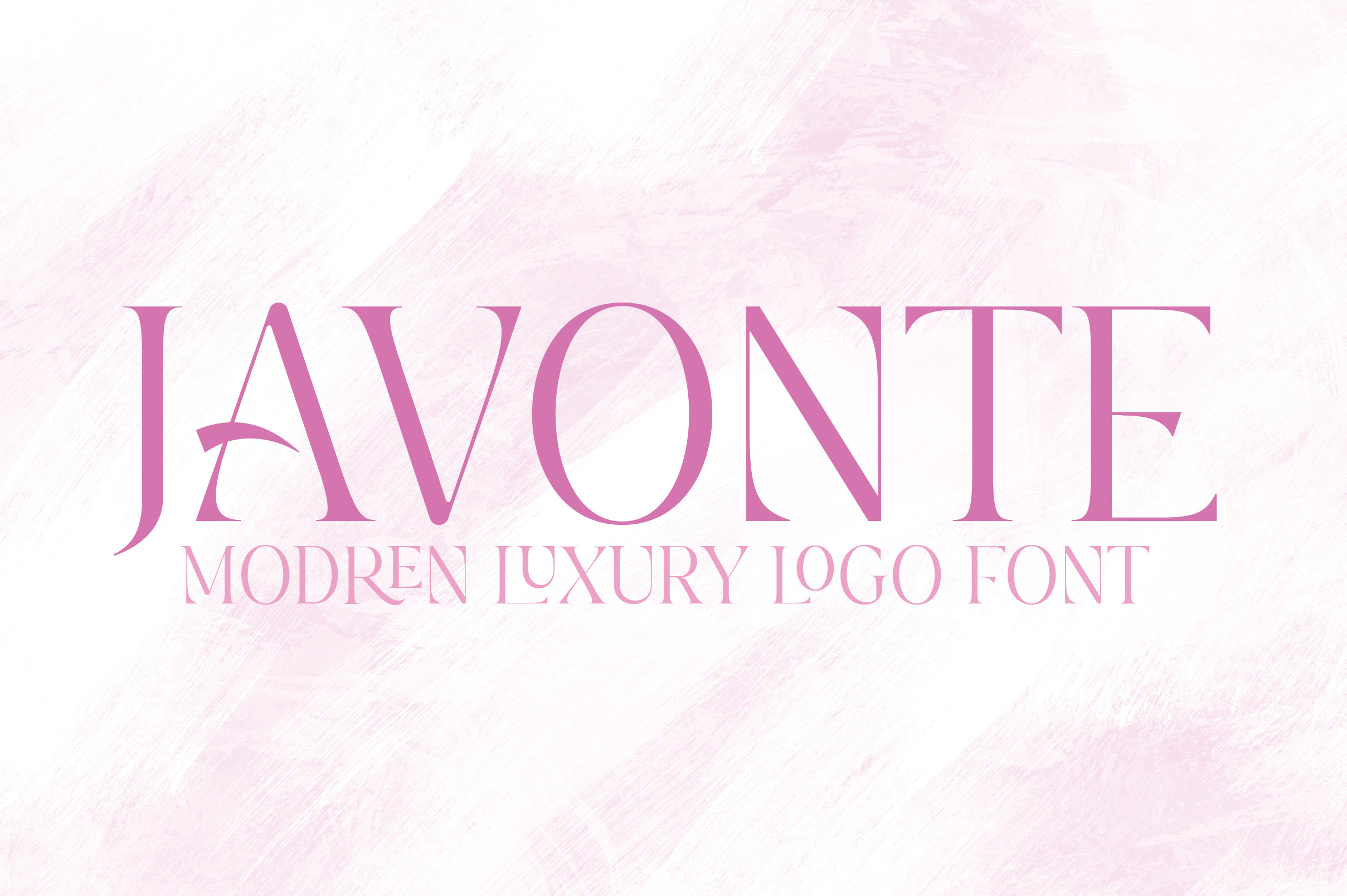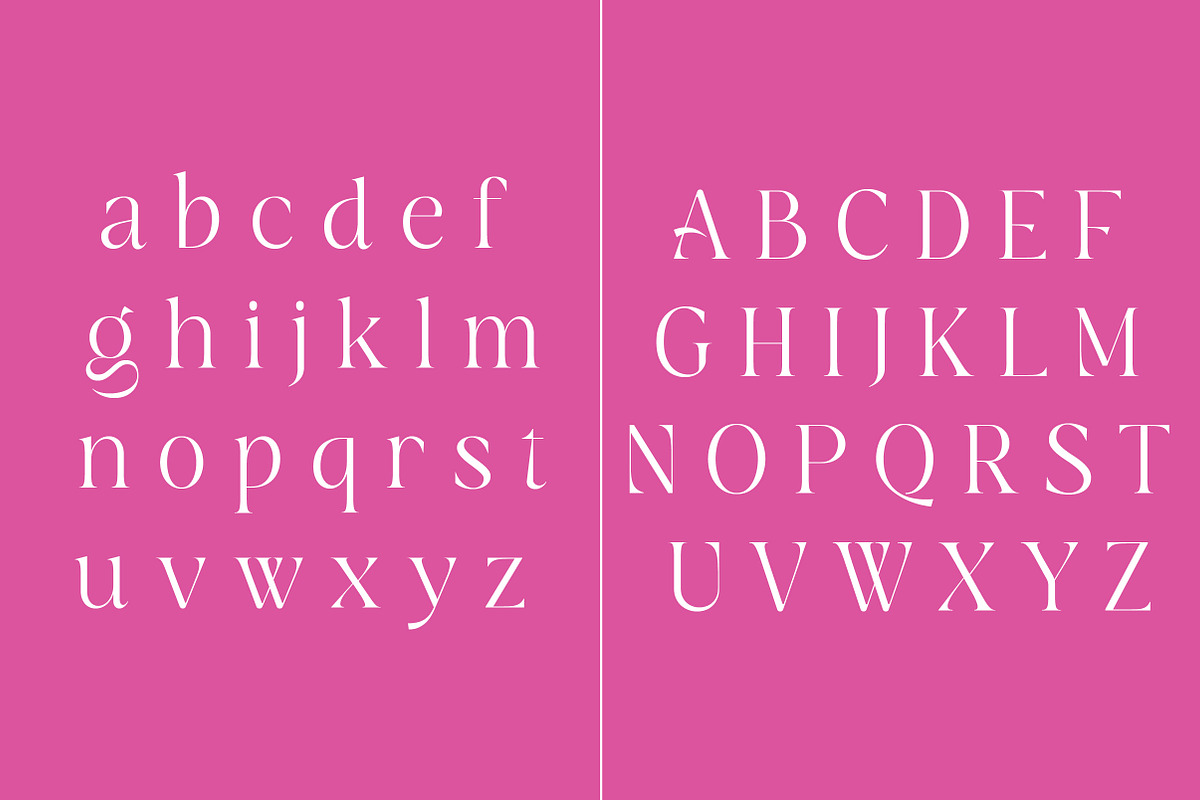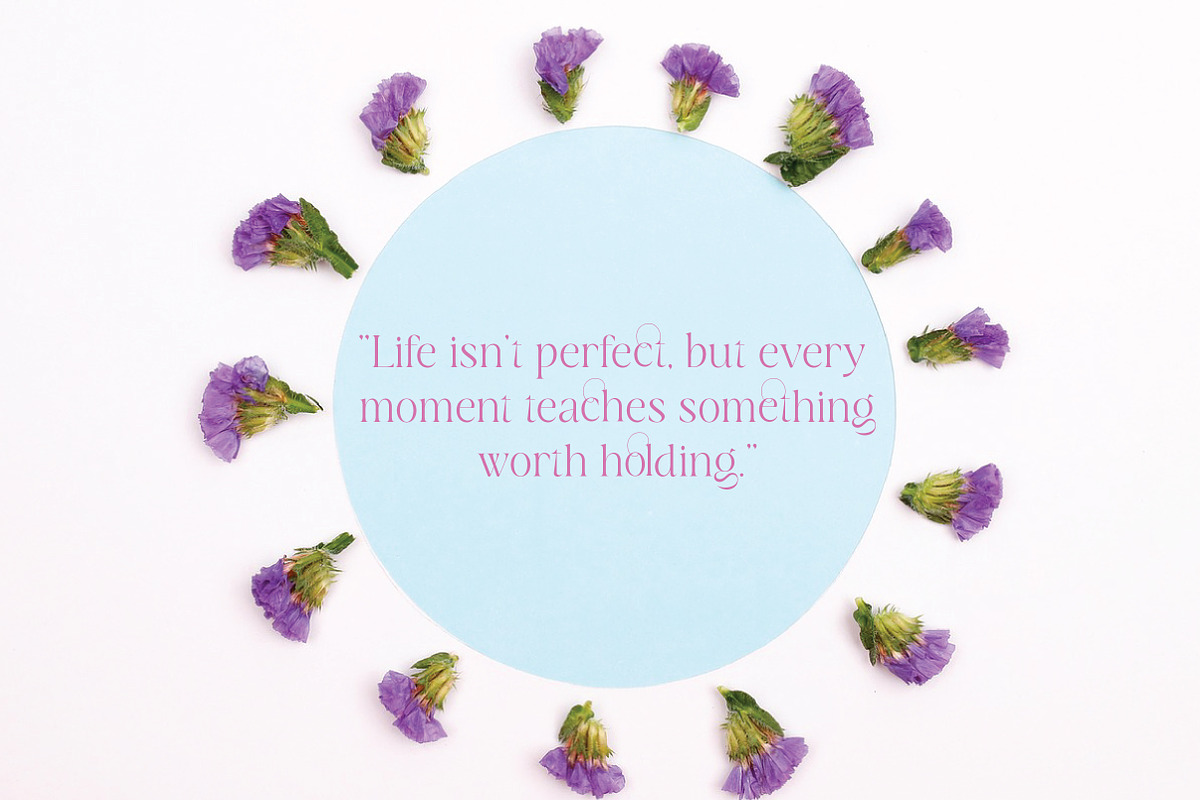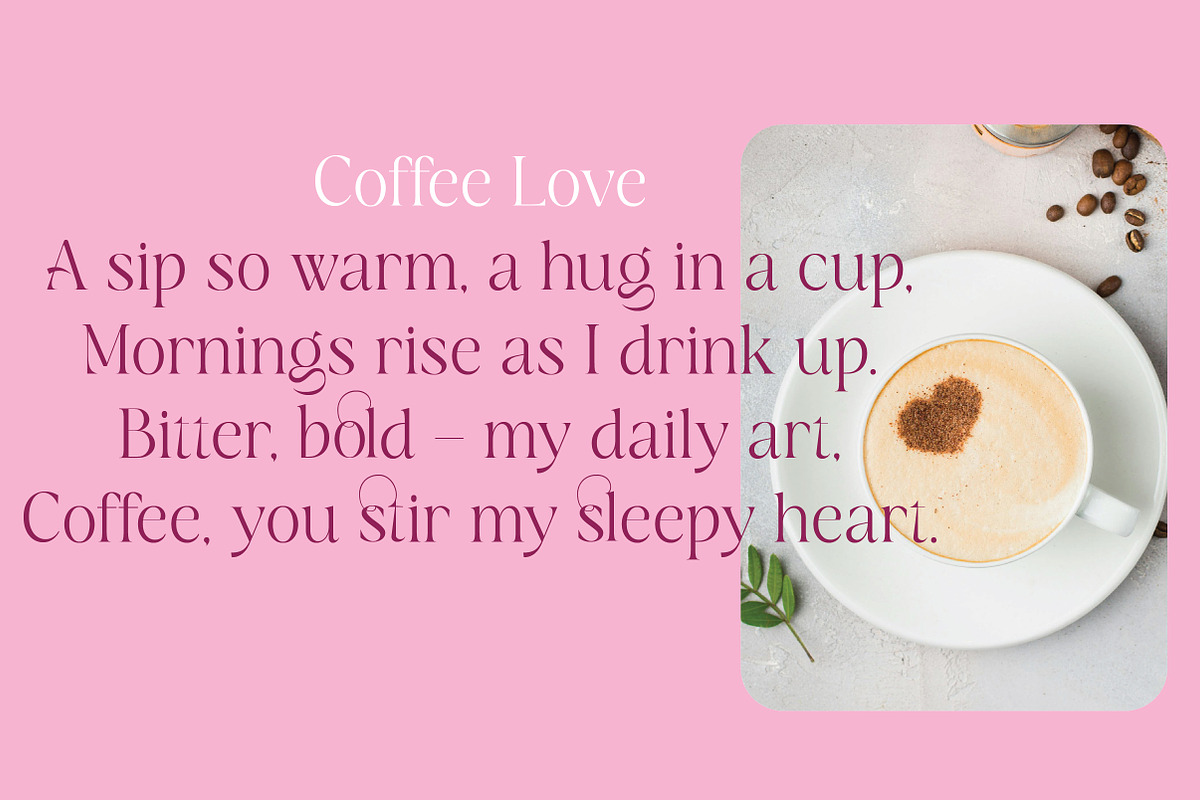
Javonte Clean Modern Serif Typeface
Javonte is a refined serif typeface crafted with clean lines and modern elegance. The Regular style offers a balanced, readable structure that makes it ideal for a wide range of design projects from branding and editorial design to logo creation, packaging, and social media graphics.
With its timeless character and contemporary feel, Javonte brings a polished, professional look to both headlines and paragraph text. It’s a great choice for designers seeking clarity, style, and versatility in a classic serif form.
Javonte is the perfect serif font for clean, high-end, and modern creative work.